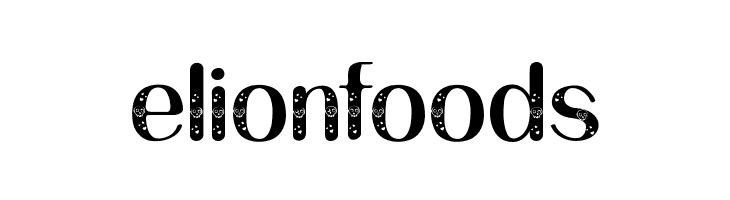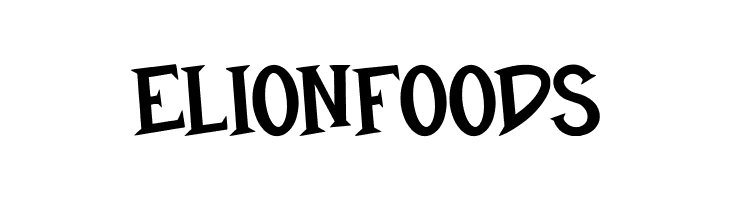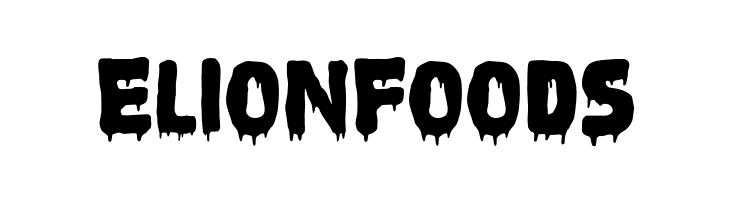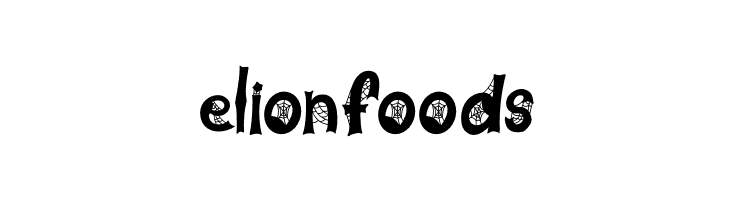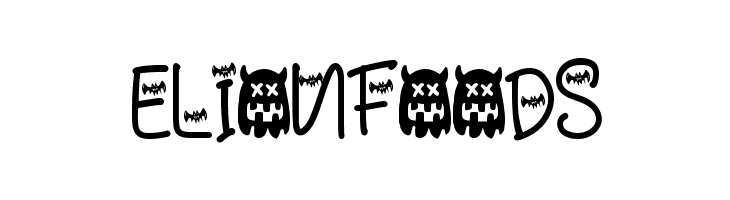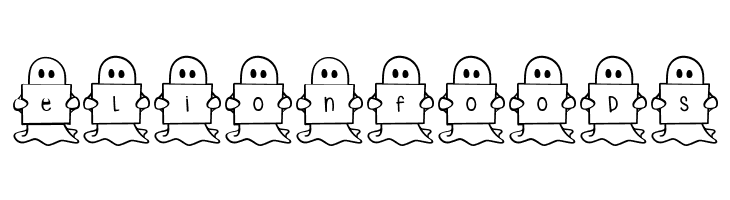
A spooky, bone-themed decorative font perfect for Halloween designs.
( Fonts by creativetacos )
A playful, spooky font with swirling patterns and eerie textures.
( Fonts by Asep Rendi )
A whimsical, playful font with jagged edges and dynamic strokes, perfect for magical themes.
( Fonts by Alpaprana Studio )
A playful, spooky font with a dripping, melting appearance.
( Fonts by Attype Studio )
A spooky, cobweb-themed font perfect for Halloween designs.
( Fonts by Letterafa Studio )
A playful, bat-themed decorative font with bold, rounded characters.
( Fonts by Brittney Murphy Design )
A playful, ghost-themed decorative font perfect for Halloween designs.
( Fonts by Muhammad Yafinuha )
Halloween-themed decorative dingbat font with spooky icons.
( Fonts by Si Panji )
A spooky, dripping font ideal for Halloween themes.
( Fonts by Misti's Fonts )
A bold, irregular font with a spooky, hand-drawn appearance.